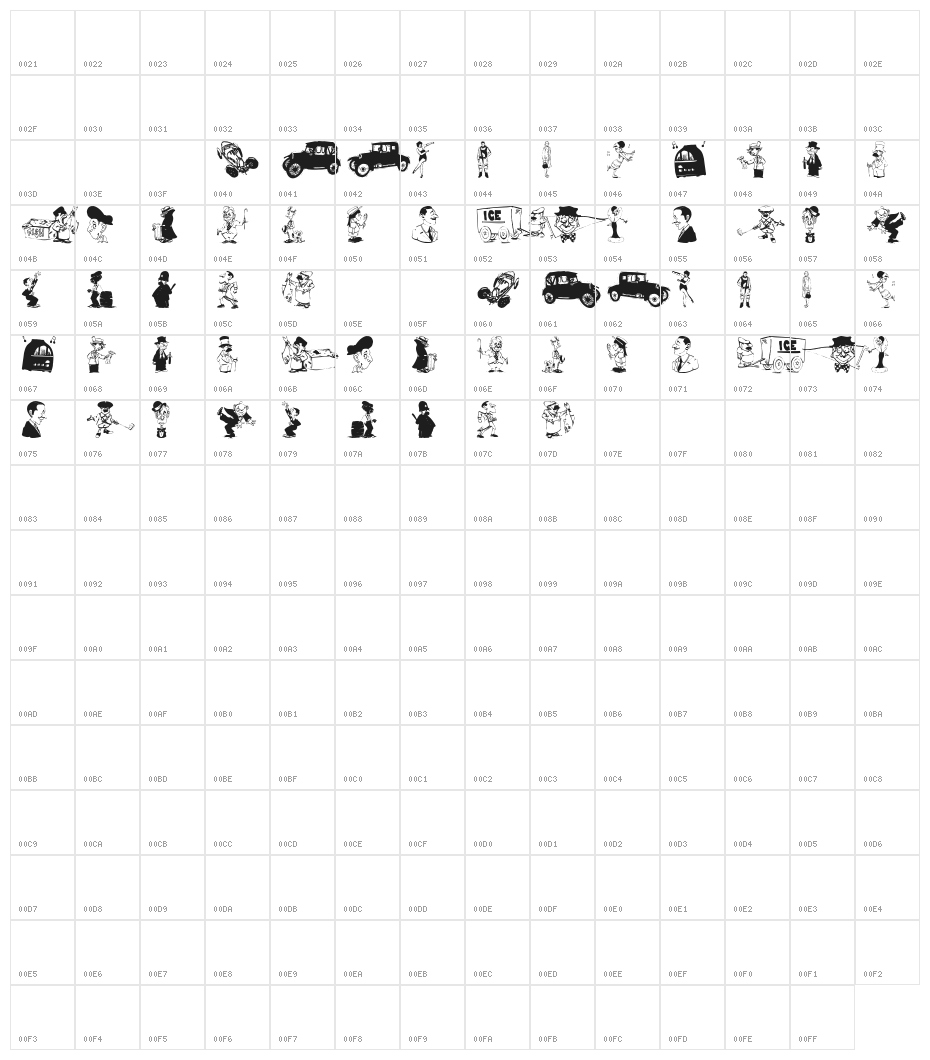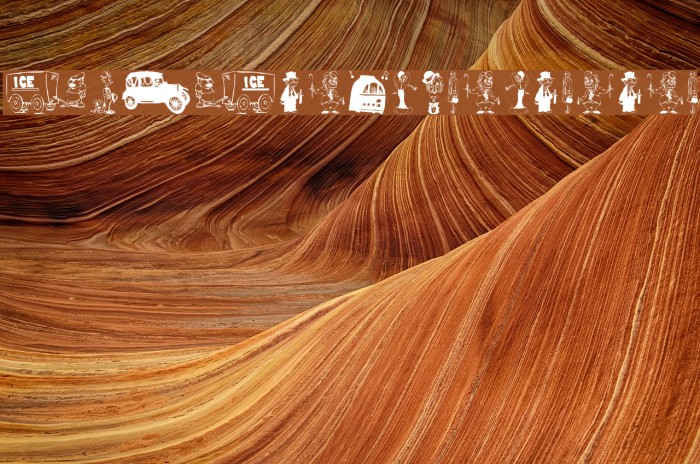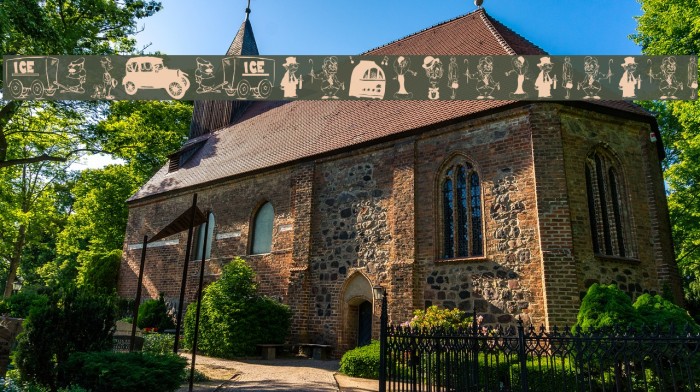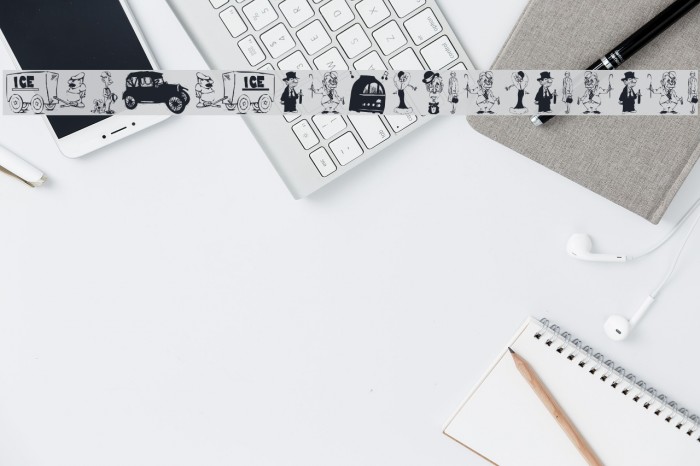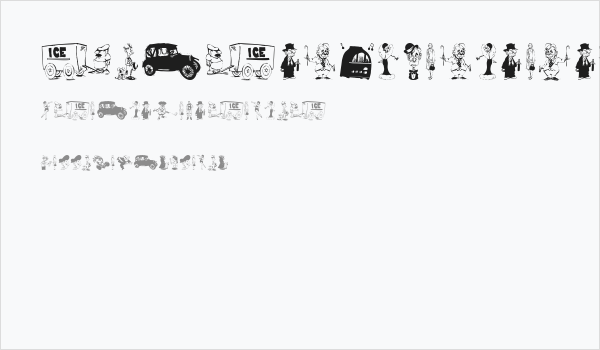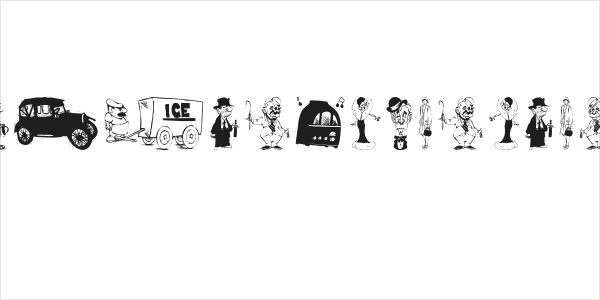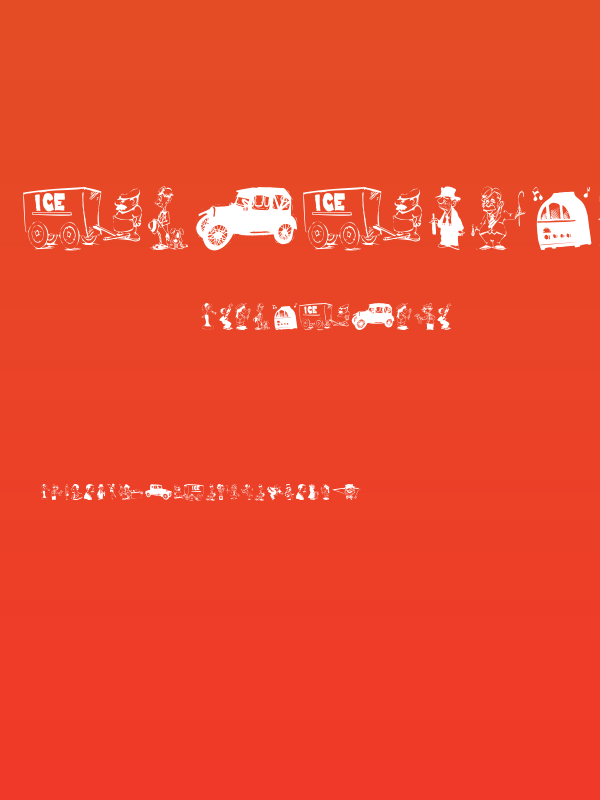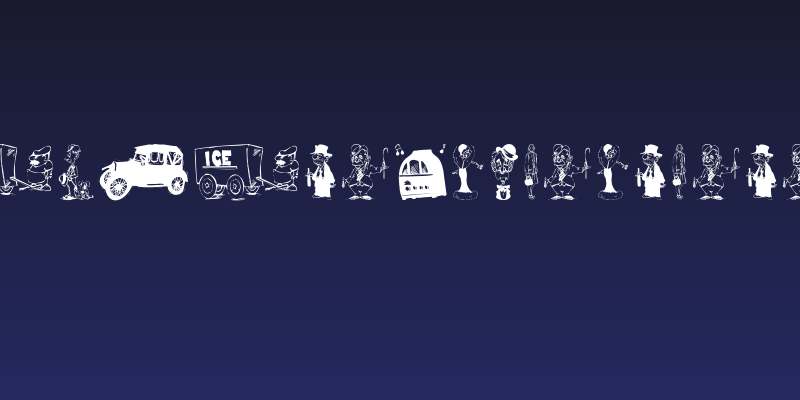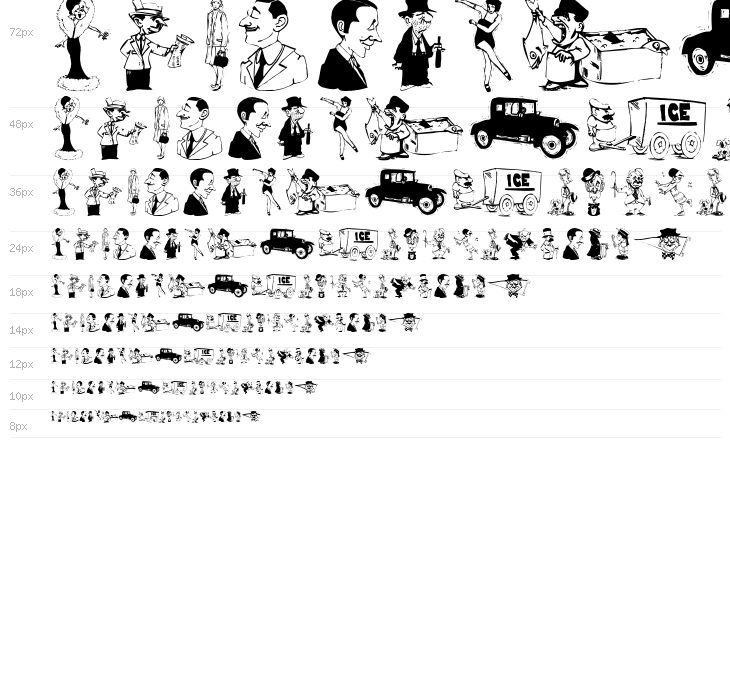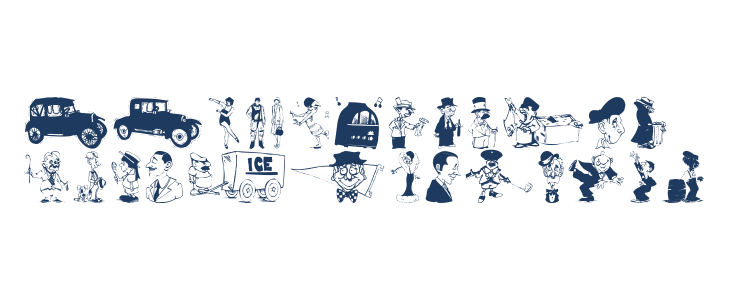
RoaringTwentieNine Font
RoaringTwentieNine Description
A decorative display font featuring detailed, cartoon-style illustrations of 1920s figures, vehicles, and objects in place of traditional alphanumeric characters, evoking a playful and nostalgic atmosphere.
| Overall Style | Vintage, Decorative, Playful |
| Use Case | Headlines, Logos, Themed graphics, Posters |
| Proposed Projects | Event posters, party invitations, themed branding, educational materials, retro designs. |